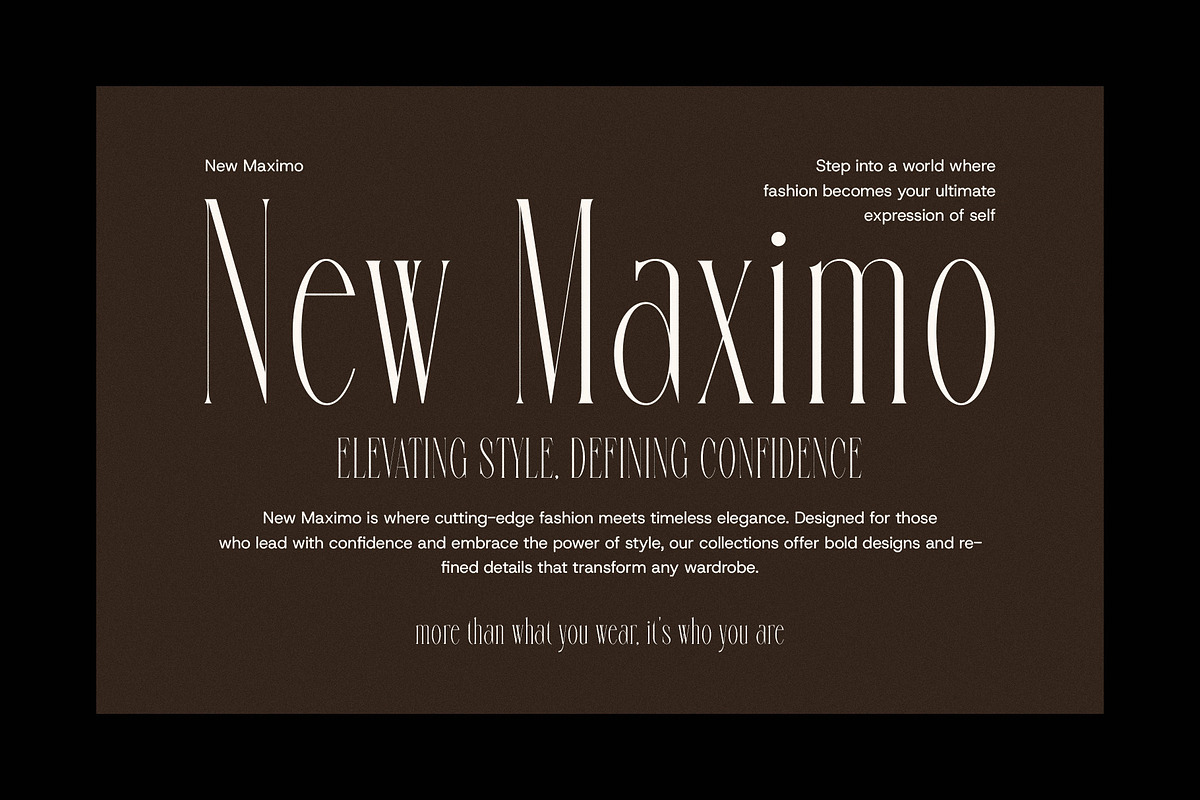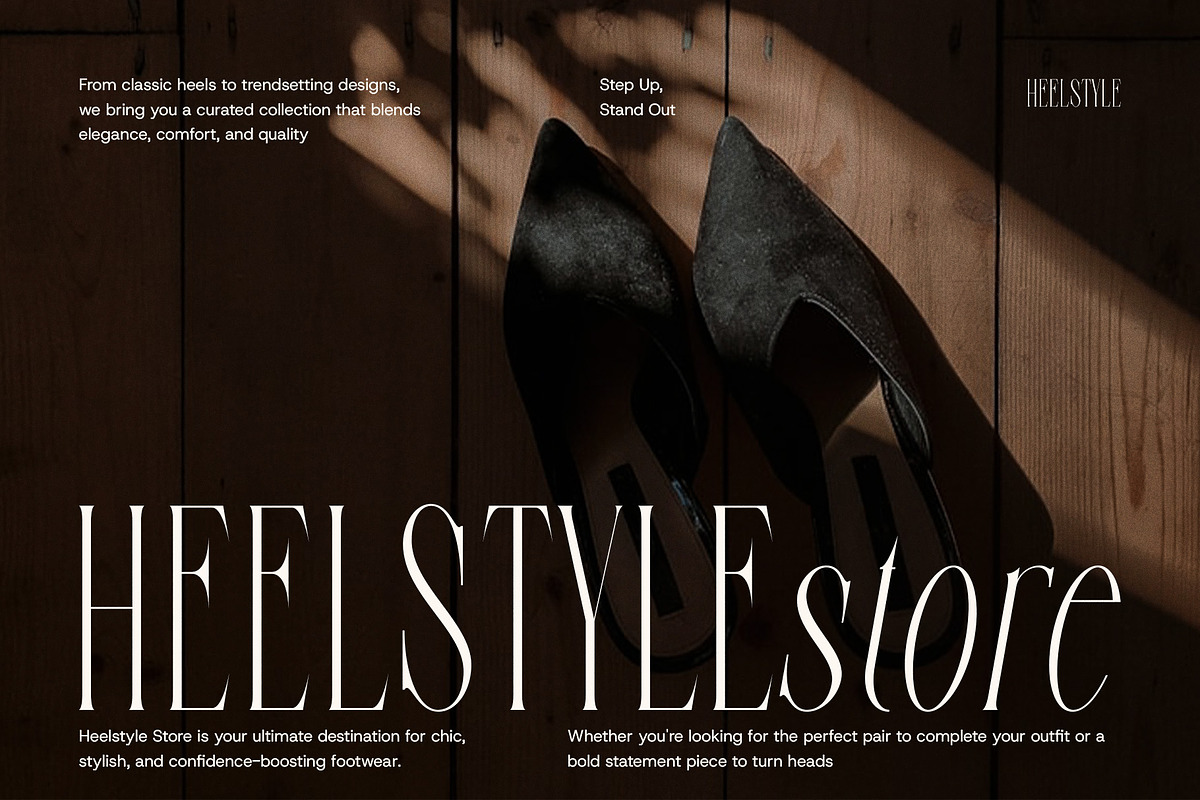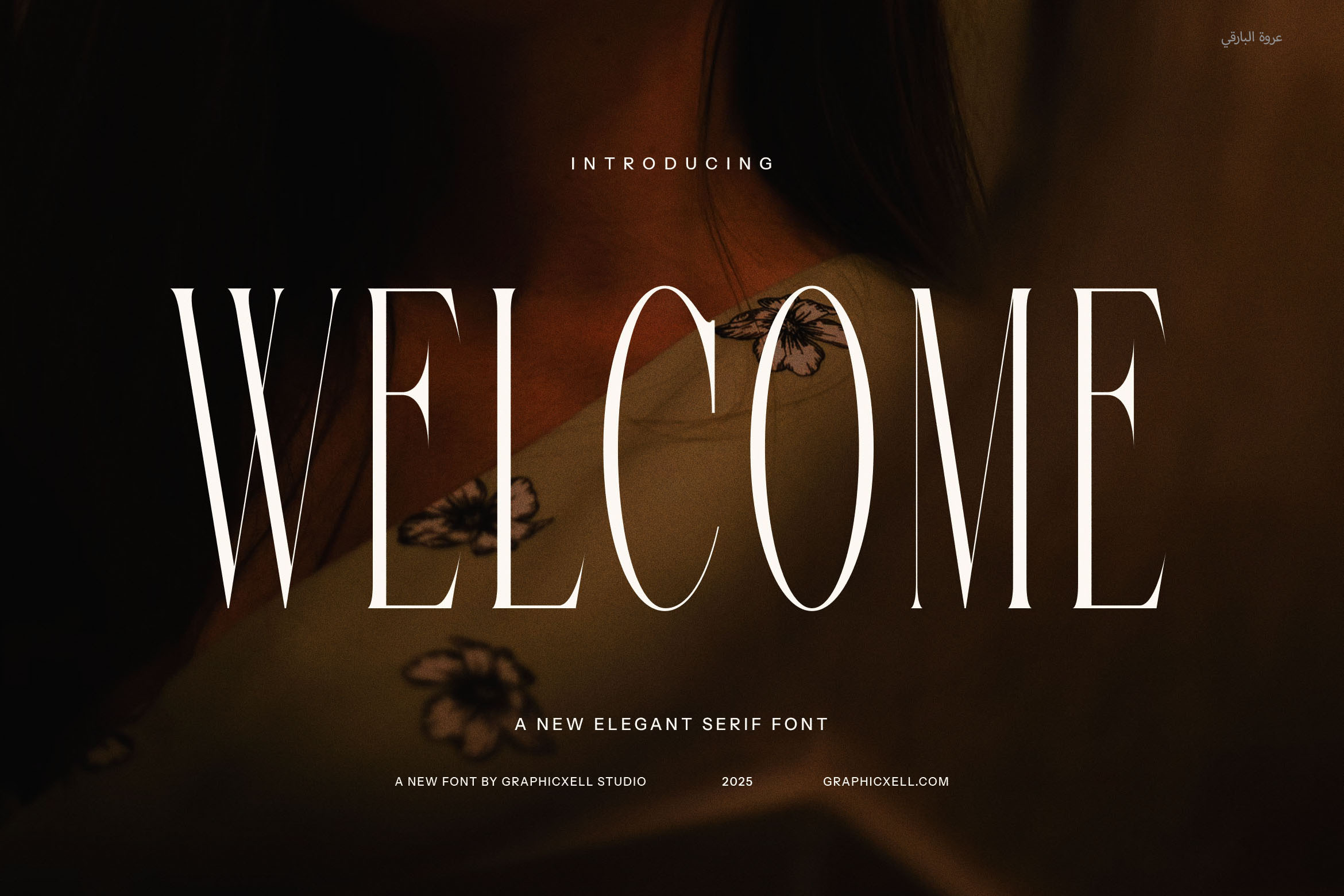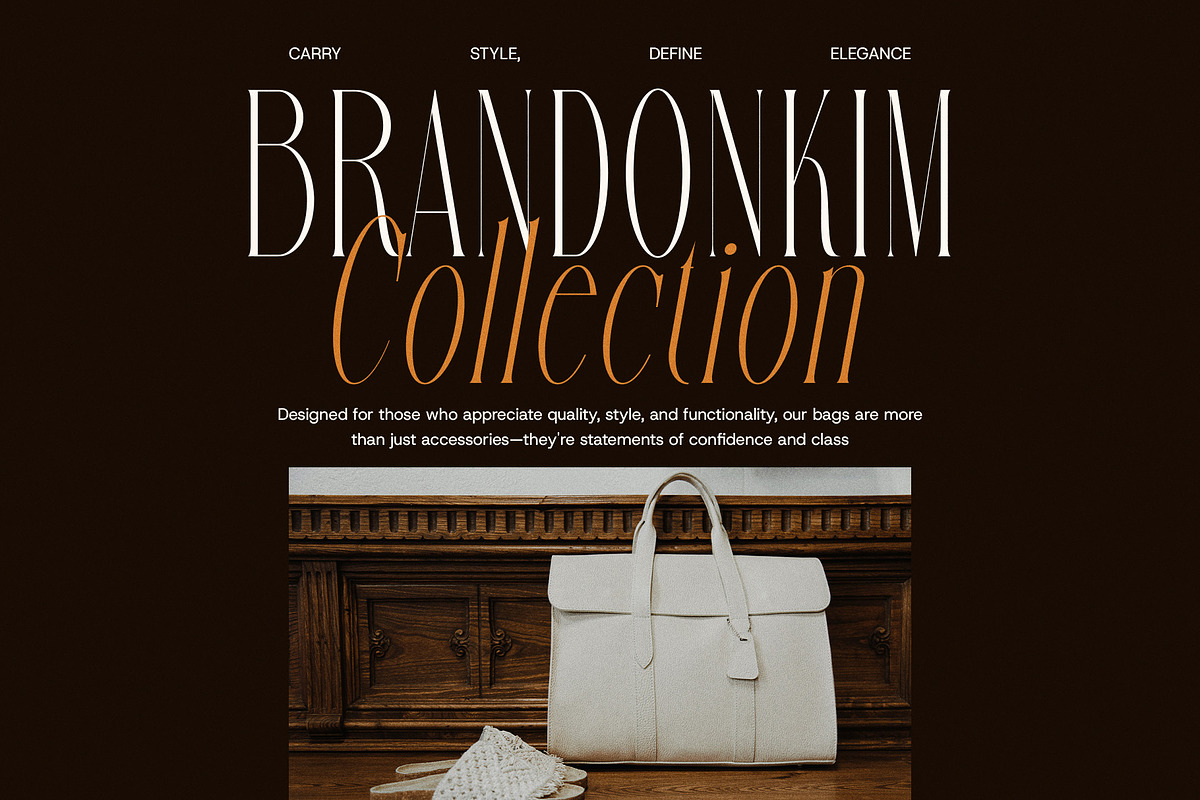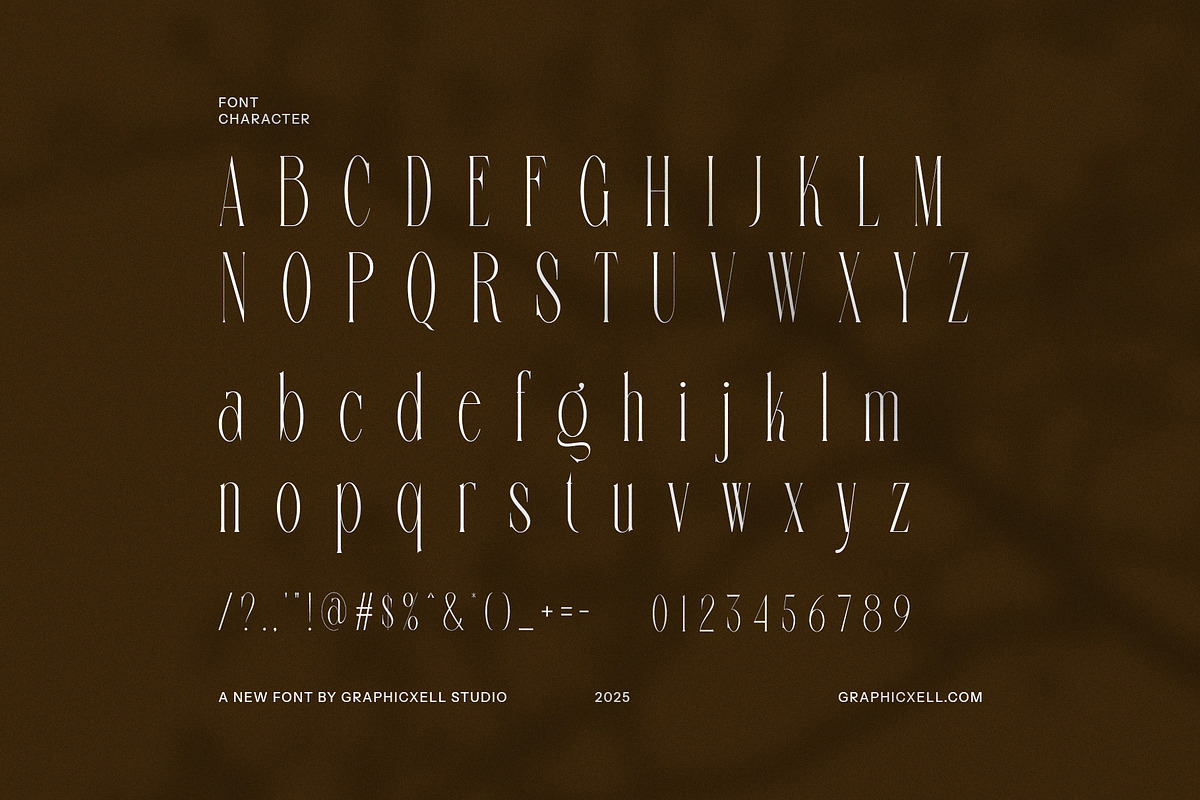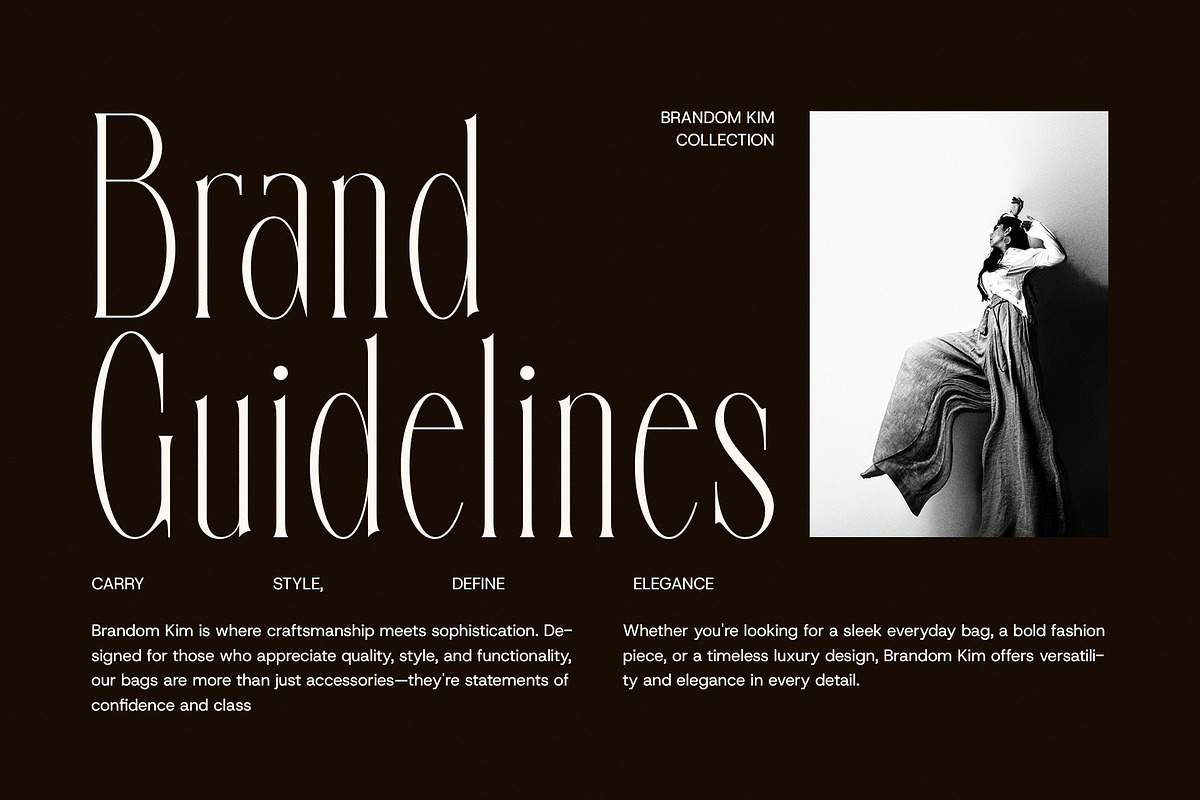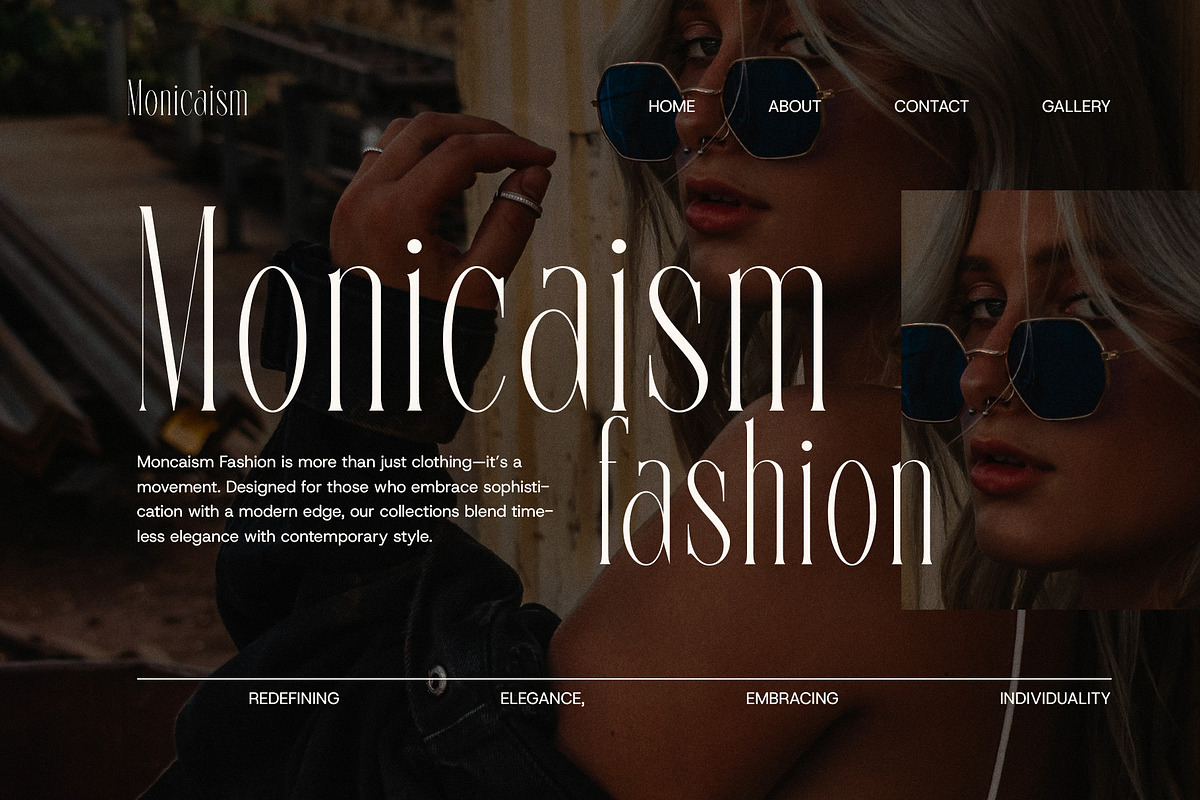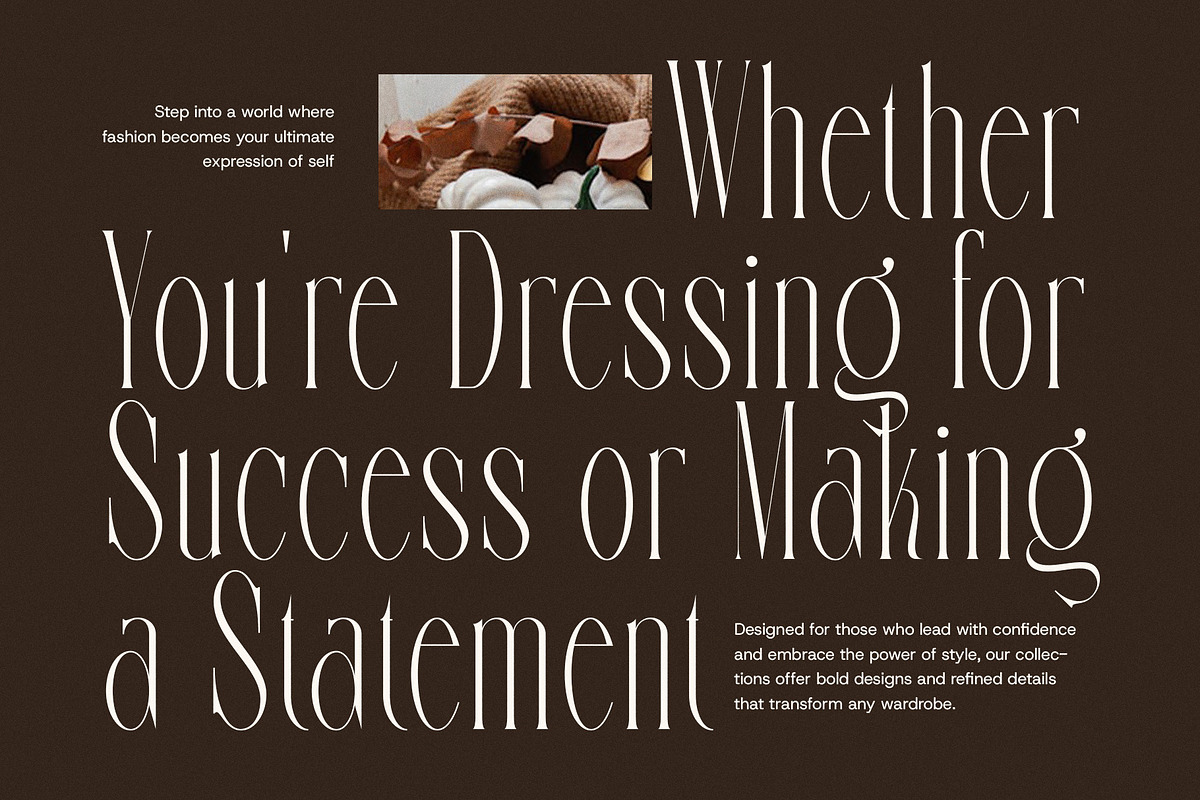
Welcome Elegant Serif Fonts
Welcome Elegant Serif is a refined and stylish typeface that blends classic charm with contemporary aesthetics. Designed for those who appreciate elegance in every detail, this serif font features graceful curves, balanced proportions, and a distinctive character that exudes sophistication. Whether you're crafting high-end branding, luxury packaging, or editorial layouts, this font elevates your design with an air of exclusivity.
With its well-defined serifs and sleek letterforms, Welcome Elegant Serif captures a timeless beauty that feels both modern and classic. The subtle contrast in stroke weights adds to its uniqueness, ensuring excellent readability while maintaining a striking visual appeal. This makes it an ideal choice for luxury brands, fashion boutiques, premium food packaging, and upscale advertising campaigns.
Versatile yet distinctive, this font seamlessly adapts to various creative applications, from elegant logos and website headlines to stylish magazine covers and product packaging. Whether used in minimalist designs or bold statements, it adds a touch of refinement and sophistication to any project.
Perfectly suited for branding, editorial layouts, invitations, and high-end product labels, Welcome Elegant Serif is more than just a typeface—it’s a statement of class and creativity. If you seek a font that embodies modern elegance with a timeless edge, Welcome Elegant Serif is your go-to choice. Let your designs speak with poise, style, and unparalleled beauty.